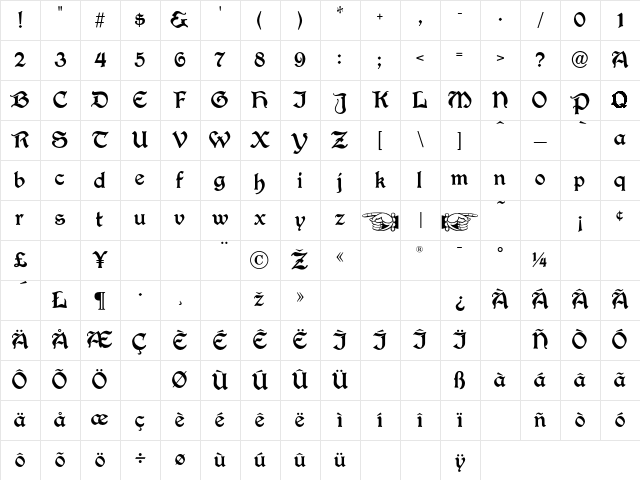
AcademyText Regular Free Font
AcademyText Regular
Foundry: Digitized by Dan X. Solo. Software Dover Publications, Inc
Design Context for AcademyText
AcademyText is a composed and adaptable typeface that performs quietly and consistently across a wide range of design contexts.
Who designed the AcademyText Regular font?
This font was published by Digitized by Dan X. Solo. Software Dover Publications, Inc. Check the technical specs section for copyright and designer details.